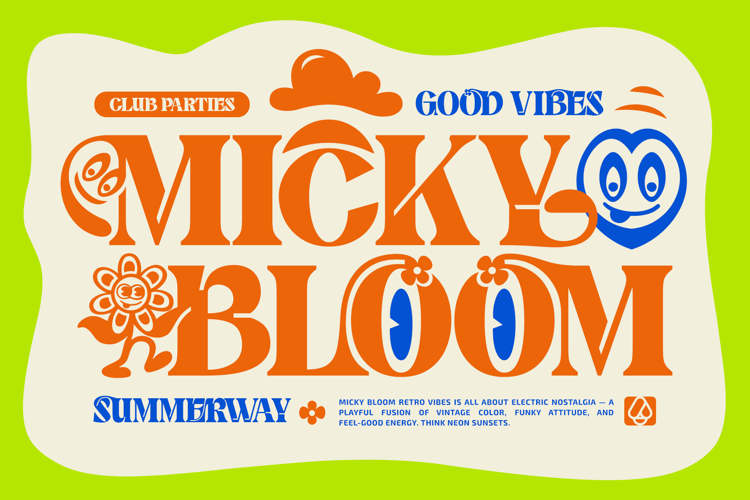
Bulky Foot Font
Bulky Foot: Where Retro Playfulness Meets Modern Edge
Step into a world of vibrant nostalgia with Bulky Foot, the latest masterpiece from Alit Design Studio. Designed for creators who aren’t afraid to make a statement, Bulky Foot is a quirky, expressive typeface that perfectly captures the "New Retro" aesthetic. It’s bold, it’s bouncy, and it’s packed with personality.
The Aesthetic: Groovy, Bold, and Unapologetic
Bulky Foot draws inspiration from the psychedelic posters of the 70s and the playful mascot art of the early 2000s. Its thick, "bulky" weighted letters are softened by unexpected curves and sharp, stylized serifs, creating a unique visual rhythm. Whether you are designing for a high-energy nightclub or a whimsical children's brand, this font adapts to bring a sense of joy and movement to your layout.